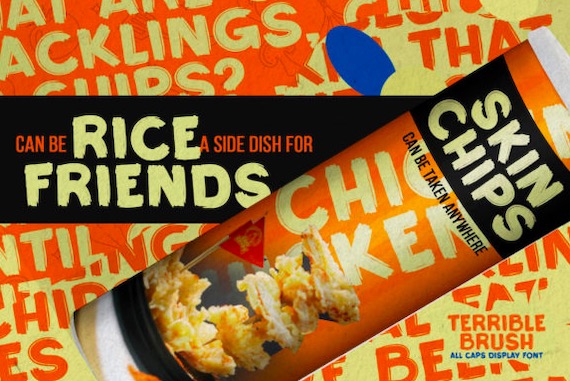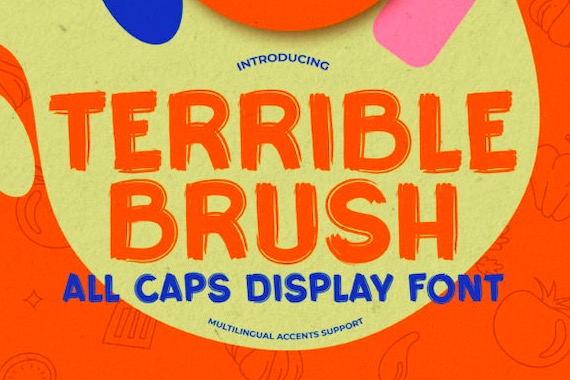
Terrible Brush Font is a classy all-caps display typeface that was created and shared by Gassstype Studio along with an authentic brush, natural, and textured style. This modern font has a natural hand-drawn look. This Terrible Brush Font will make your projects naturally professional. It is perfect for invitations, logos, book covers, crafts, photography overlays, signs, window art, scrapbooking, tags, and so much more!
Terrible Brush Display Font